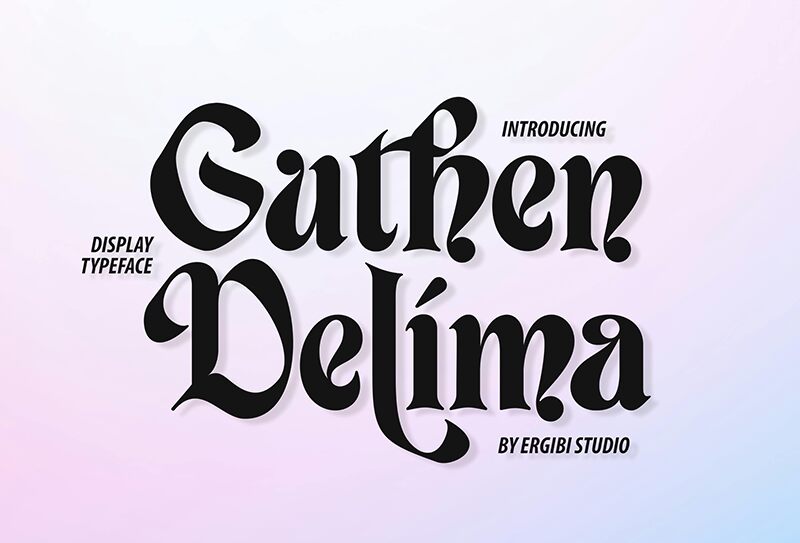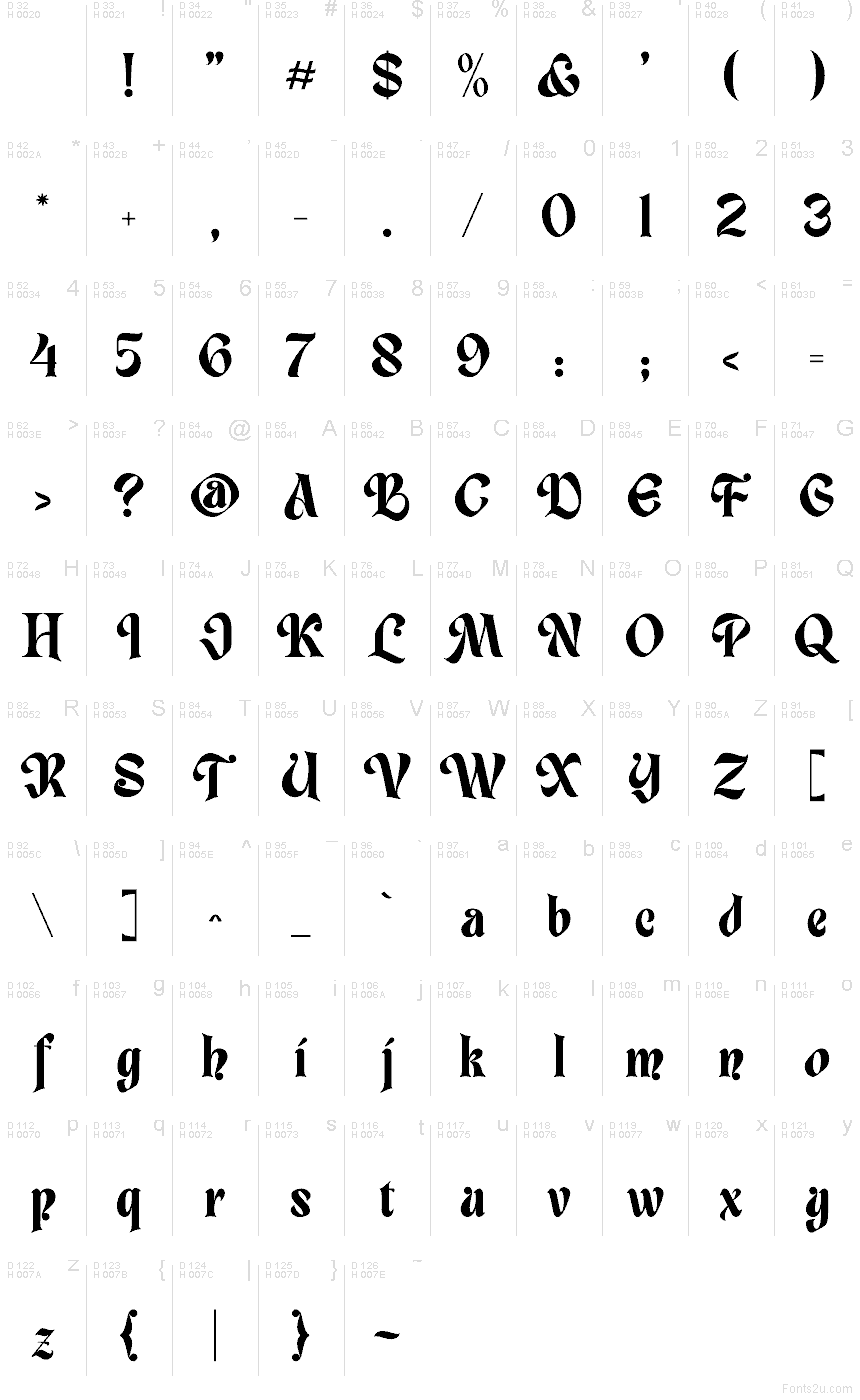
Guthen Delima font by Riyadh Rahman of Ergibi Studio is a free decorative blackletter display typeface that fuses gothic drama with velvety, calligraphic curves. The strokes are inky and full, with soft, rounded terminals that keep the Old World feel from becoming harsh or spiky. Those sweeping capitals and flowing joins create a strong, romantic word shape that looks hand-lettered yet remains surprisingly readable at larger sizes.
Using Guthen Delima, your titles instantly feel lush and theatrical, like signage for a historic tavern or a dark fairytale book cover. This free font works beautifully for logos, packaging, posters, band artwork, fantasy or gothic branding, and bold social graphics where you want ornate impact. Pair it with a clean geometric sans in smaller sizes to let Guthen Delima handle the drama while the supporting text stays crisp and clear.